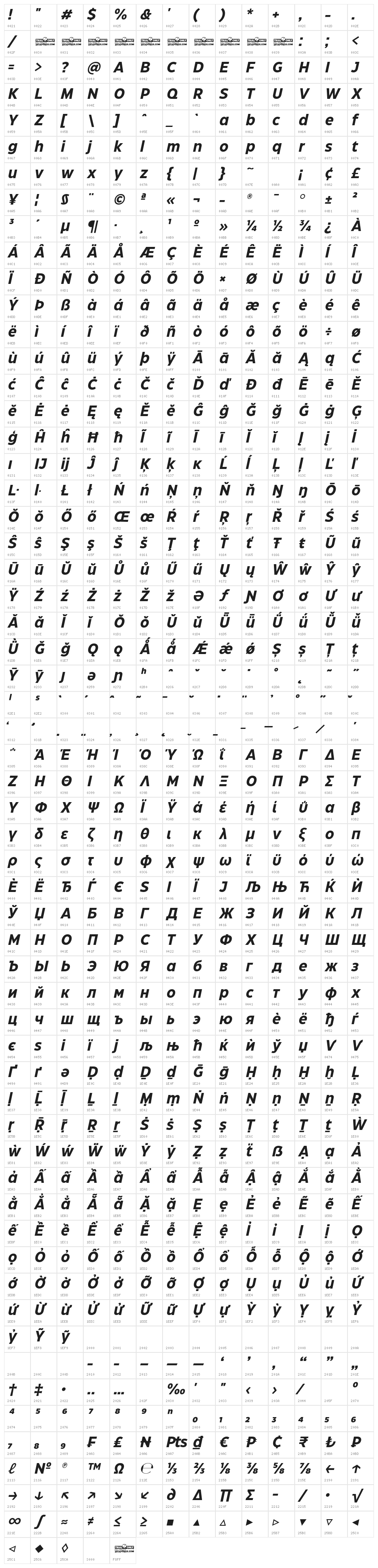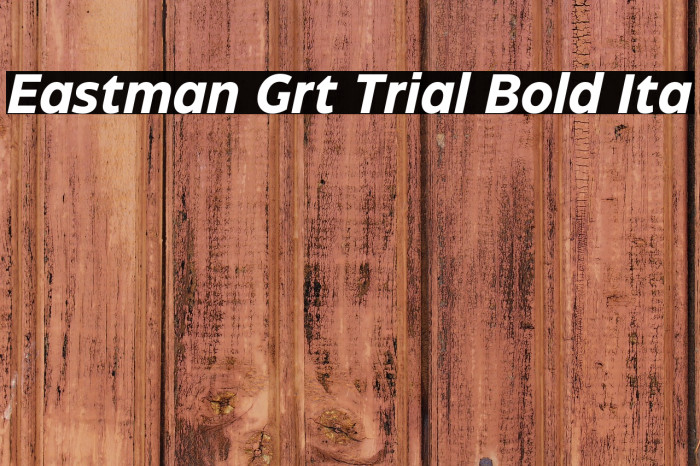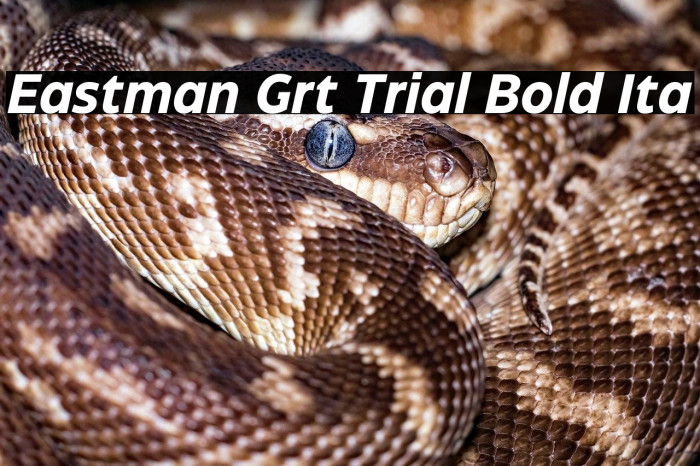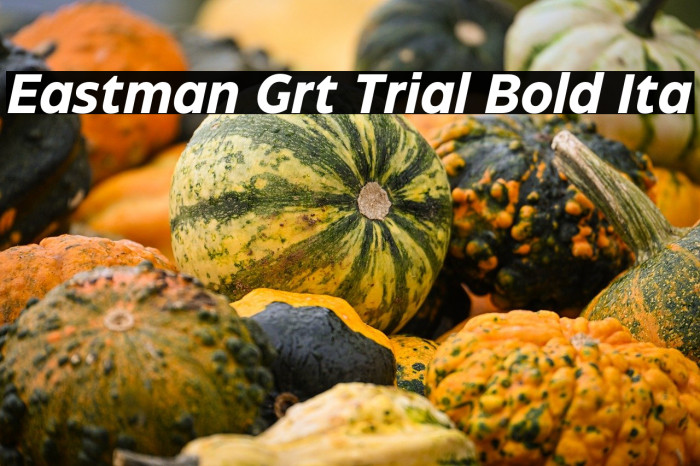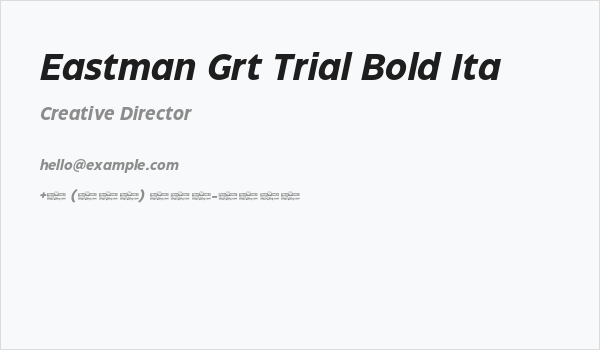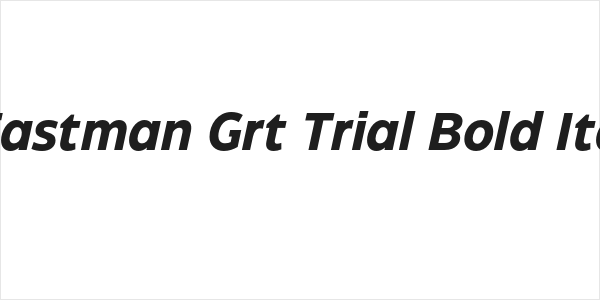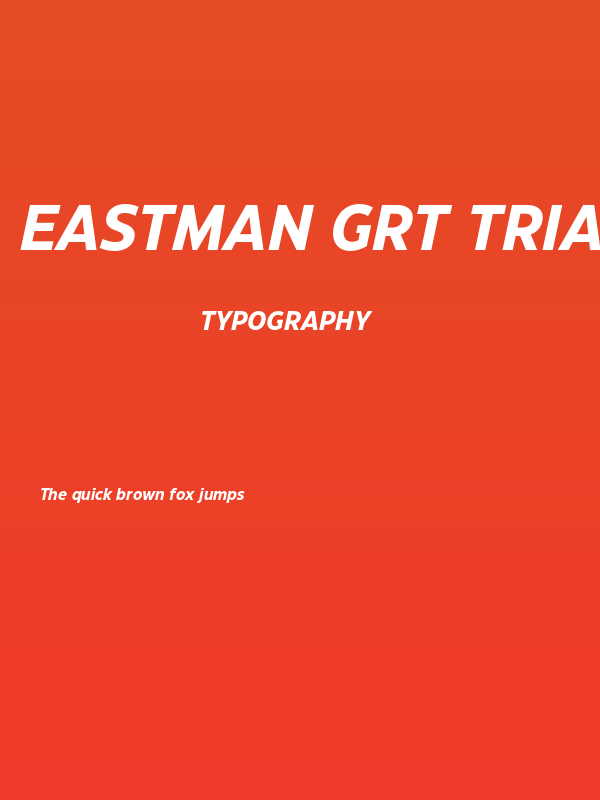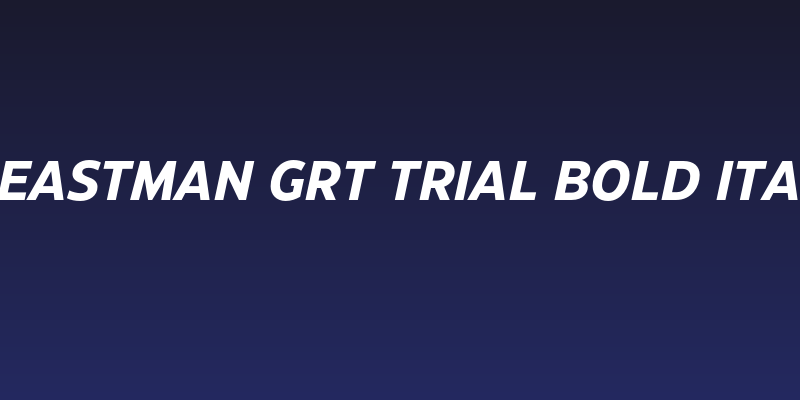
Eastman Grt Trial Bold Ita Font
Eastman Grt Trial Bold Ita Description
This font exhibits a bold and italicized style, characterized by strong, thick strokes and a slight slant that adds a dynamic feel. The uppercase and lowercase letters maintain a consistent weight, providing a robust and confident appearance. The numerals and special characters are designed with the same boldness, ensuring uniformity across all glyphs. The font's clean lines and modern aesthetic make it suitable for a variety of applications, from digital to print media. Its bold nature ensures high readability, even at smaller sizes, while the italic slant adds a touch of elegance and movement.
| Use Case | Headlines, Logos, Advertising |
| Proposed Projects | Ideal for branding, headlines, advertising, and digital media projects. |